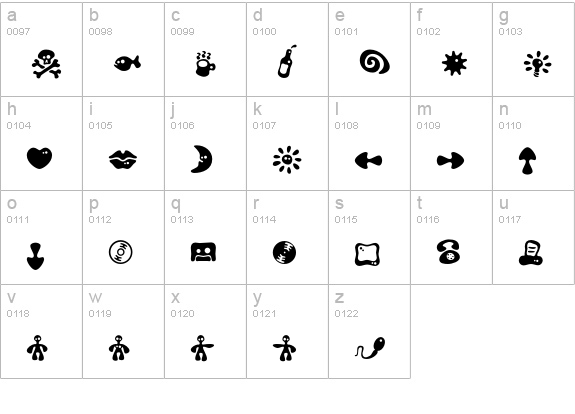
Amoeba-Amoebats Font Details
Introducing Amoeba-Amoebats font, a whimsical and playful typeface that is sure to make your designs stand out! This unique font features fun and quirky amoeba-inspired shapes that will add a touch of creativity to any project. Perfect for posters, branding, invitations, and more, Amoeba-Amoebats font is a versatile choice for all your design needs. The best part? This one-of-a-kind font is completely free to download at FontsMarket.com! Simply visit the website and start using Amoeba-Amoebats font in your projects today. Whether you're a professional designer or just starting out, this font is a must-have addition to your collection. Don't miss out on the opportunity to add a fun and playful touch to your designs with Amoeba-Amoebats font - download it for free now!